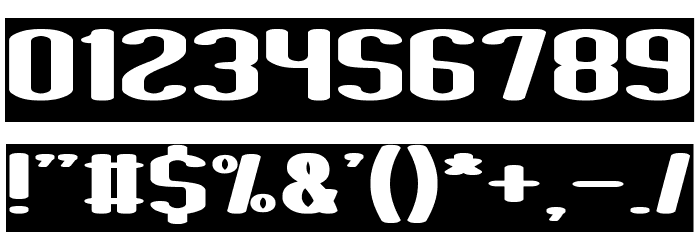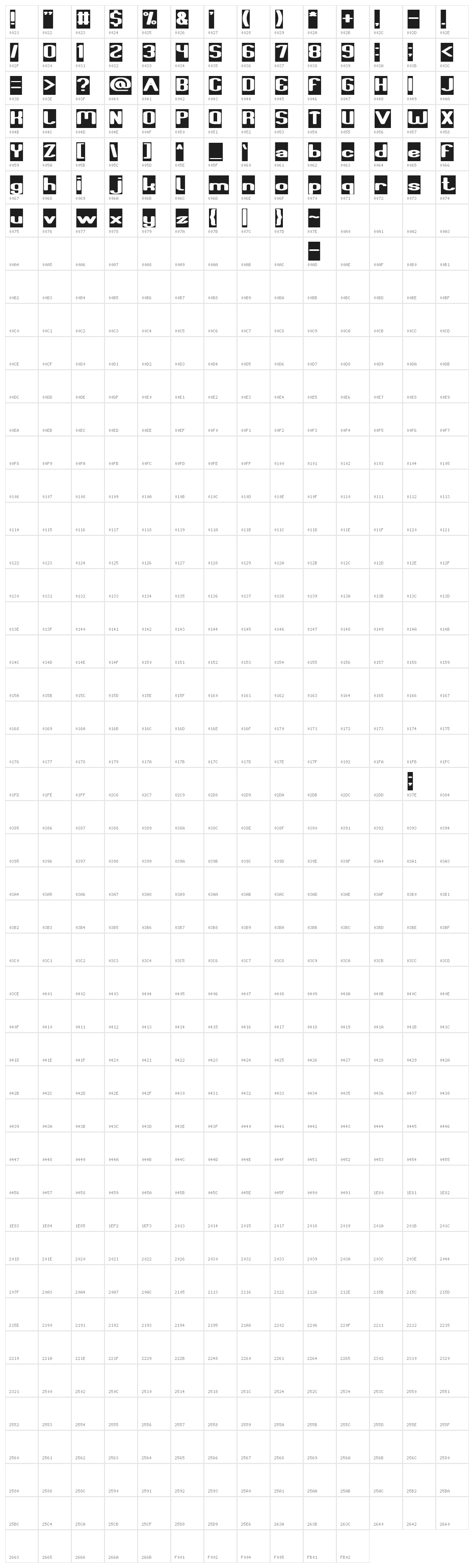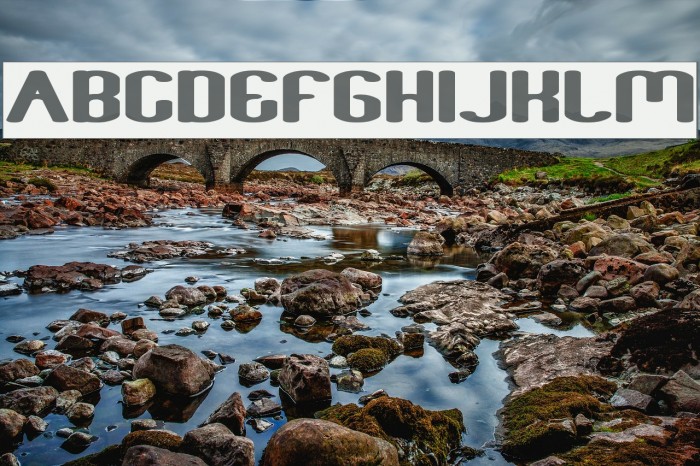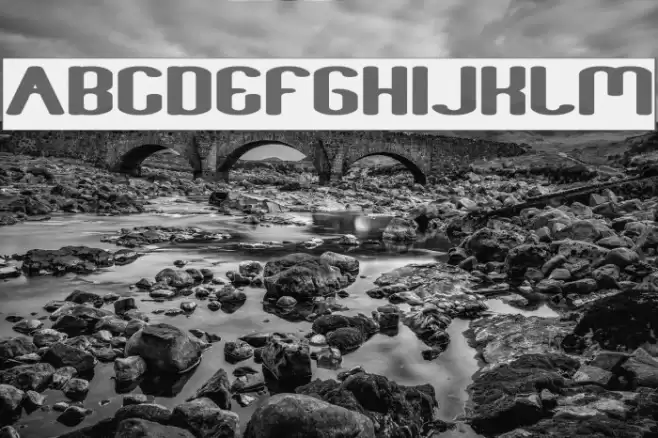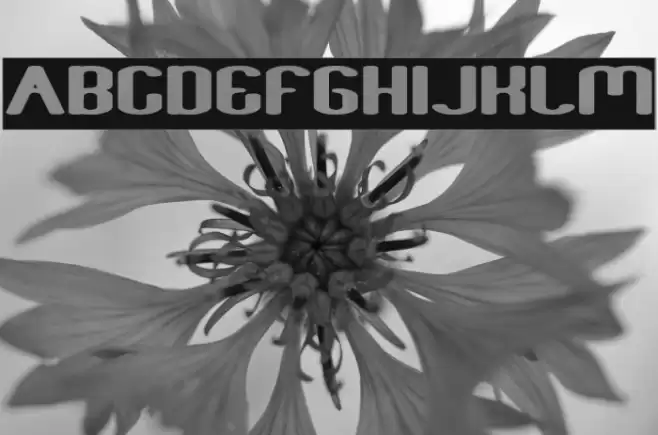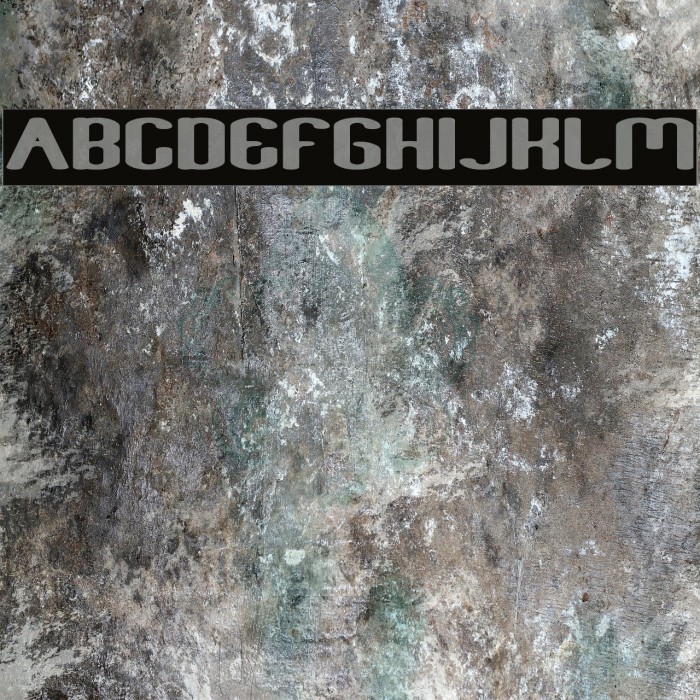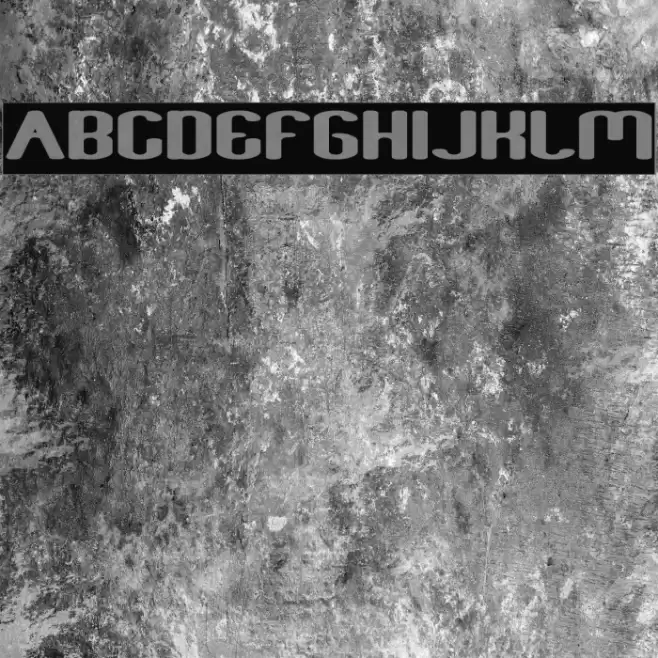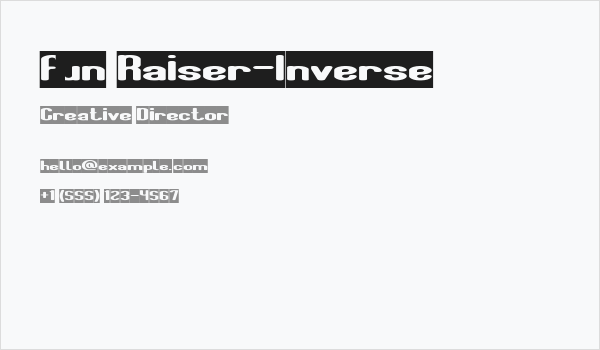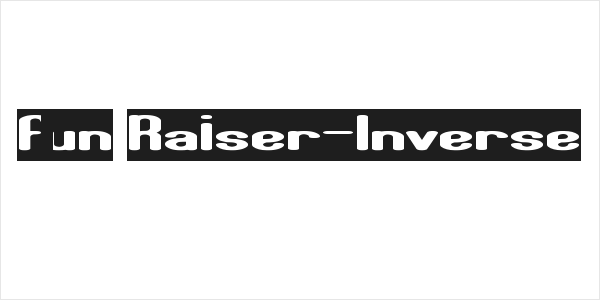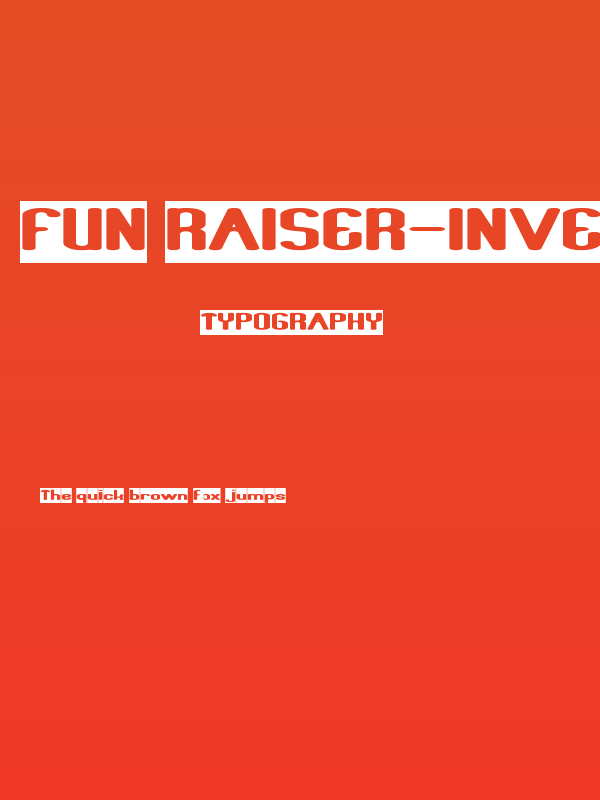
Fun Raiser-Inverse Font
Fun Raiser-Inverse Description
This font features a bold and playful design with a unique inverse style that creates a striking visual impact. The uppercase and lowercase letters are crafted with a rounded, smooth appearance, giving them a friendly and approachable feel. The numbers and special characters maintain this cohesive style, ensuring consistency across all text elements. The font's design is characterized by its thick strokes and minimal contrast, making it highly legible and suitable for various creative applications. Its distinctive look is perfect for projects that require a fun and engaging aesthetic.
| Overall Style | Playful, Modern |
| Proposed Projects | Ideal for children's books, playful branding, event posters, and creative advertising campaigns. |